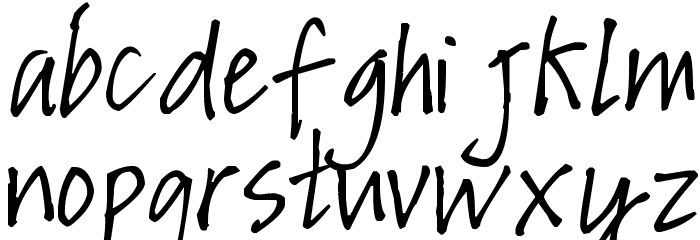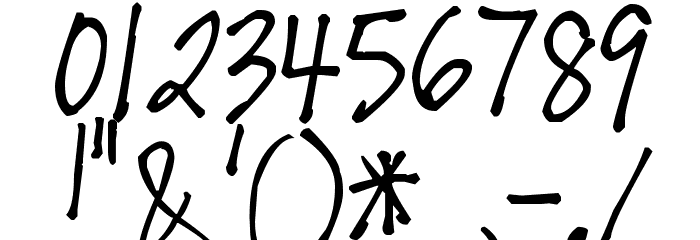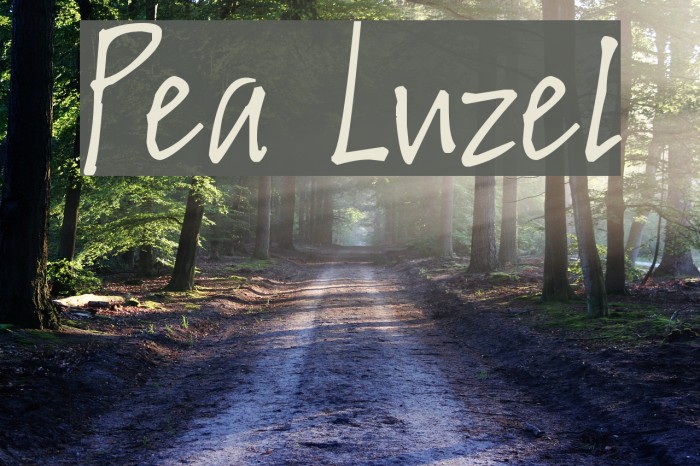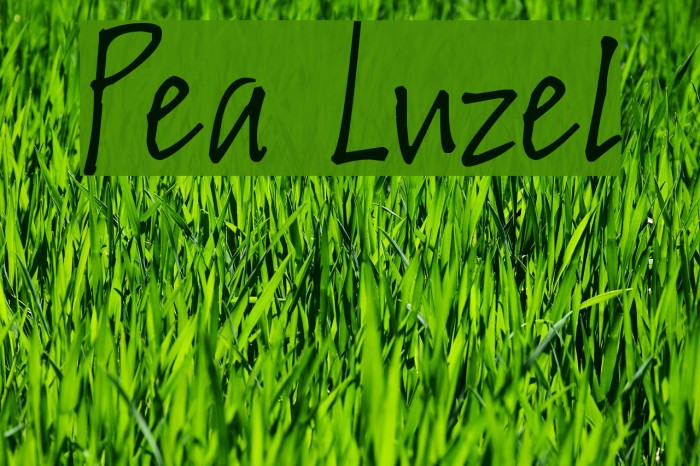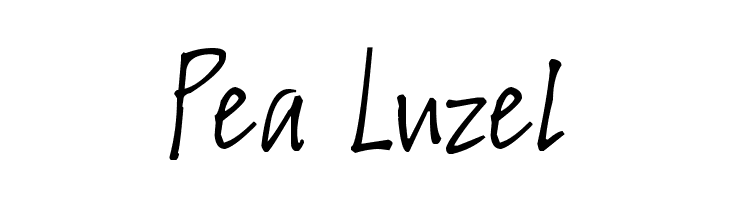
Pea Luzel Font
This font exudes a casual and handwritten style, characterized by its playful and informal appearance. The letters are slightly slanted, giving it a dynamic and lively feel. The strokes are uneven, mimicking the natural flow of handwriting, which adds a personal touch to the text. The uppercase and lowercase letters maintain a consistent style, with a slight variation in size and shape that enhances its handwritten charm. The numbers and special characters follow the same aesthetic, ensuring a cohesive look across all text elements. This font is perfect for projects that require a personal or creative touch, such as invitations, greeting cards, or personal branding materials.
A playful, handwritten font with a casual and dynamic style.
- Proposed Projects: Ideal for invitations, greeting cards, personal branding, and creative projects.
- Category: Handwritten
- Overall Style: Casual, Playful
- Use Case: Headlines, Informal text, Creative projects